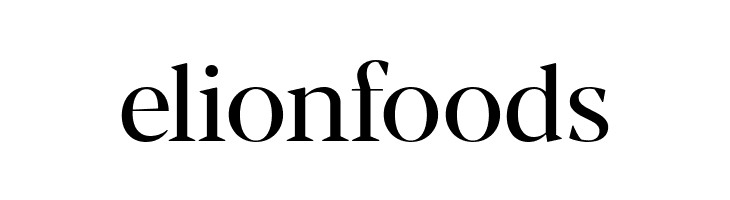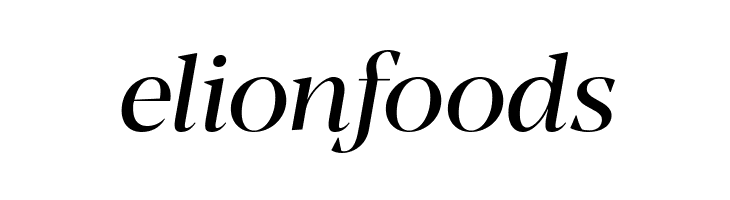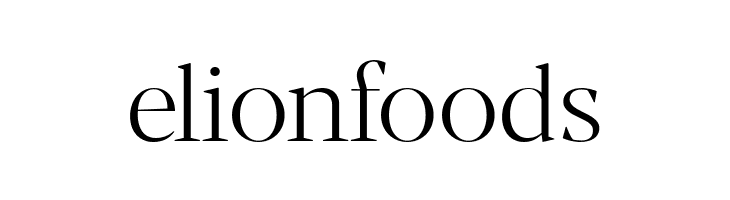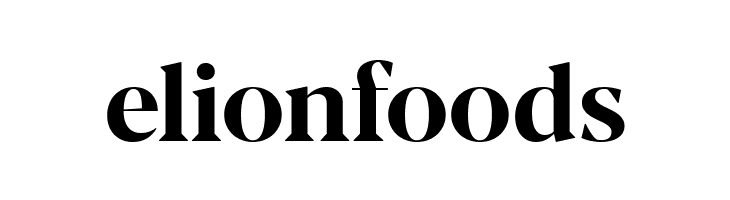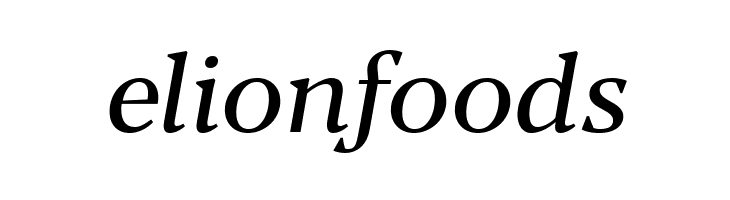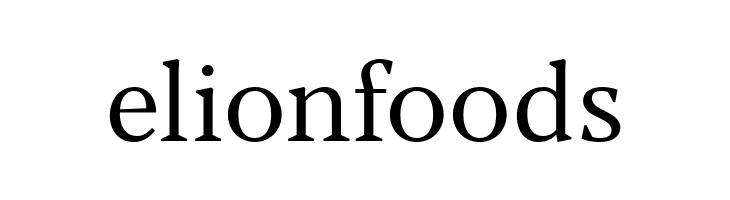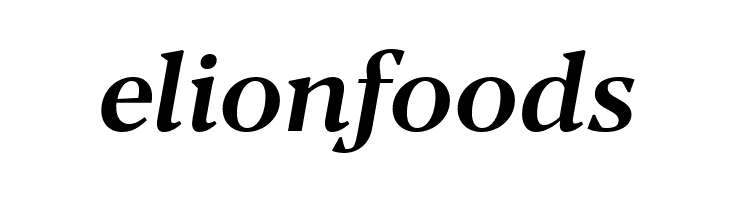
A bold, high-contrast serif font with a modern twist on classic elegance.
A sophisticated, high-contrast italic serif font with sharp serifs.
A refined serif font with high contrast and elegant, elongated strokes.
A bold, high-contrast serif font with strong vertical emphasis and elegant serifs.
An elegant italic serif font with smooth, flowing lines and refined serifs.
A bold, high-contrast serif font with sharp serifs and a commanding presence.
A classic serif font with bold, elegant curves and strong presence.
A medium weight, italic serif font with a classic and elegant style.
A bold, italic serif font with strong strokes and pronounced serifs.
An elegant, italicized font with medium weight and sharp strokes.